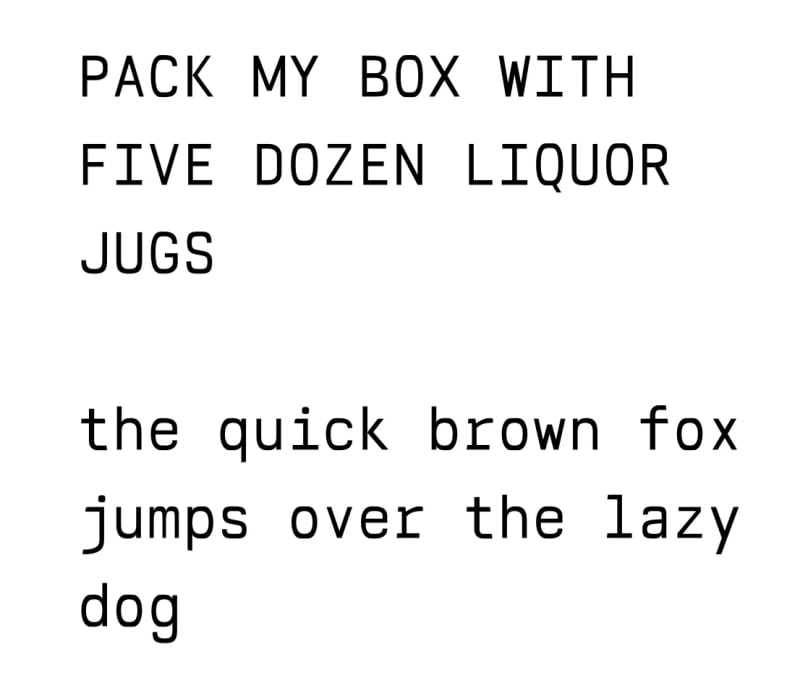
The post describes the author's journey in creating a monospaced typeface called Opus One, intended for code display. It outlines the design process, motivations, challenges faced, and the tools used, such as Glyphs 3. The post also provides installation instructions for different operating systems and details the font's limitations and characteristics.